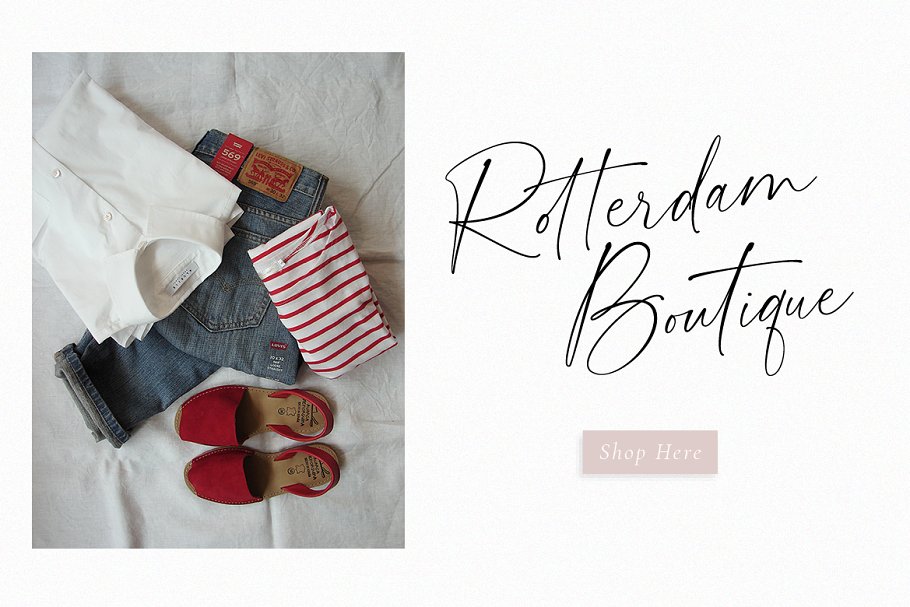
Introducing Segatha - the ultimate choice for adding a touch of elegance to your projects! Created by the talented Luthfi Fauzi, this casual handwritten font boasts a stunning script style that will make your text stand out in any context.
With its unique beginning and ending lowercase swashes, Segatha is the perfect font for adding a personal touch to your branding, invitations, watermarks, photography, and more. But what sets Segatha apart from other fonts on the market is its incredible 94 ligatures, which add a touch of beauty and aestheticism that will take your projects to the next level.
Segatha is a font that truly does it all. It's perfect for wedding invitations, engagement announcements, or anything else that requires a touch of sophistication and style. Whether you're designing a website, creating a marketing campaign, or simply crafting an email, Segatha will make your text look professional, polished, and unforgettable.